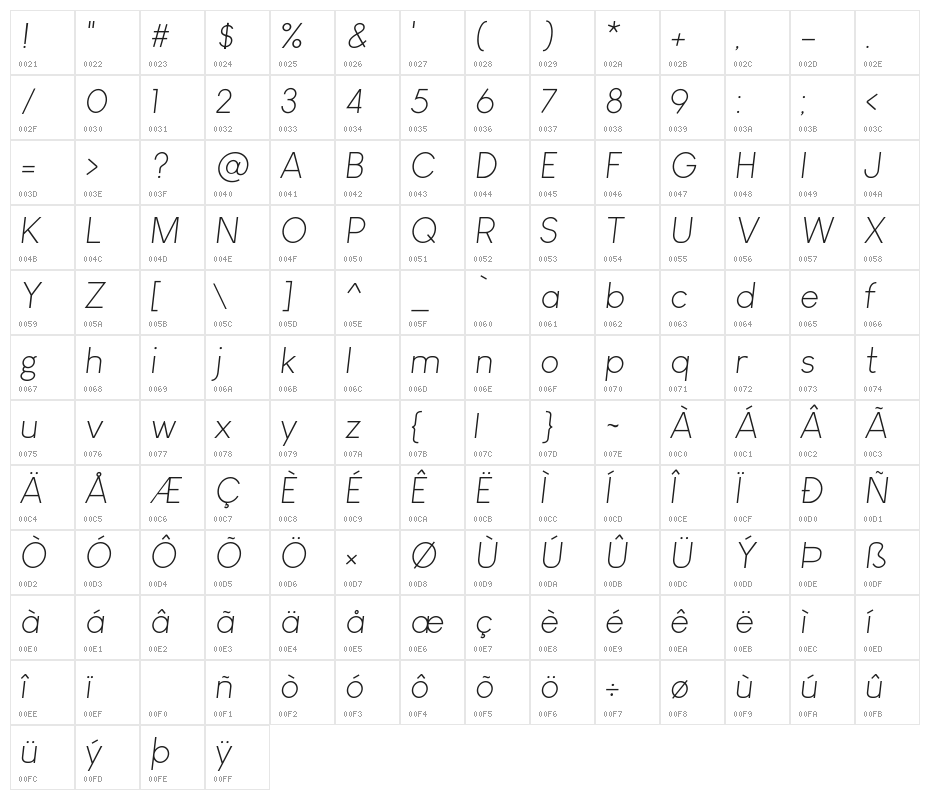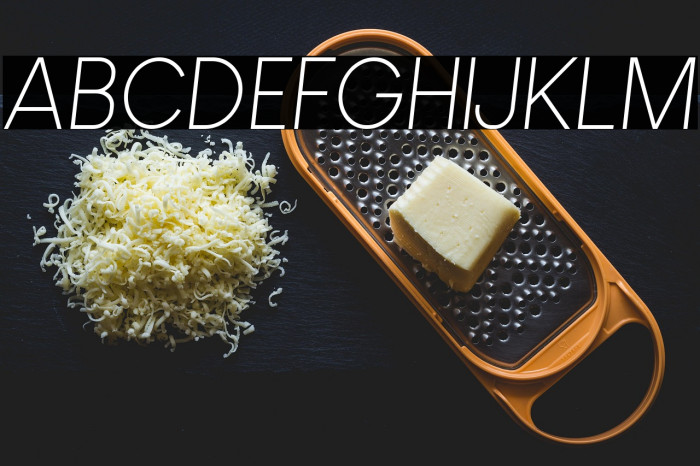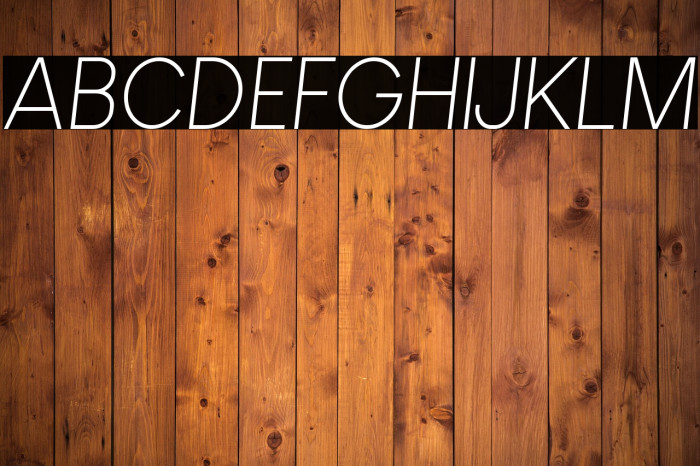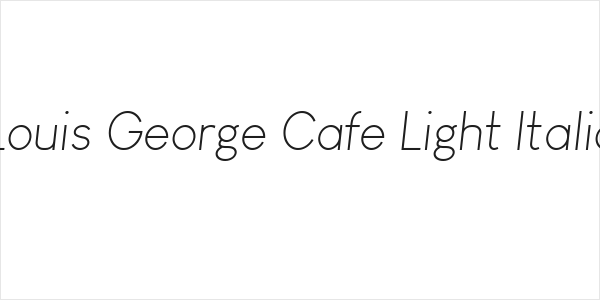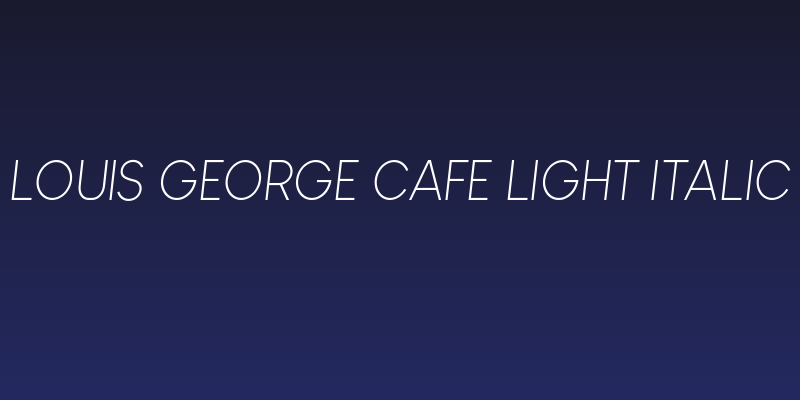
Louis George Cafe Light Italic Font
Louis George Cafe Light Italic Description
This font exudes a modern and clean aesthetic with its light and airy strokes. The characters are elegantly crafted with a slight italic slant, giving them a sophisticated and dynamic appearance. The uppercase and lowercase letters maintain a consistent style, with smooth curves and a minimalist approach. Numbers and special characters are designed to complement the overall look, ensuring readability and style. The font's light weight and subtle italicization make it ideal for projects that require a touch of elegance and modernity.
| Proposed Projects | Ideal for branding, editorial design, fashion magazines, and modern websites. |